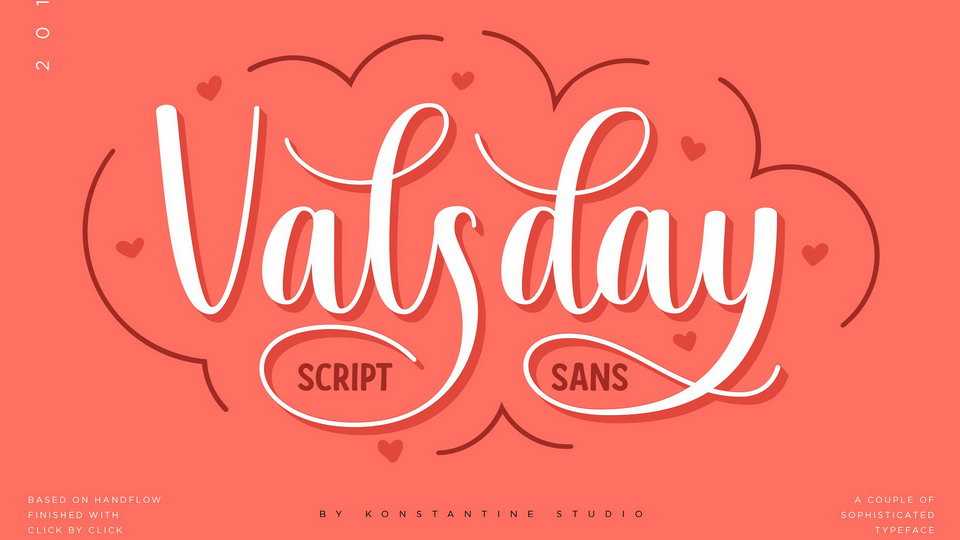
Download Valsday Script font, is a clean and swashy typeface with a beautiful flow in every move. Inspired by the modern calligraphic and lettering style to express the OG love that carefully crafted and done by human hand.
Designer: Konstantine Studio